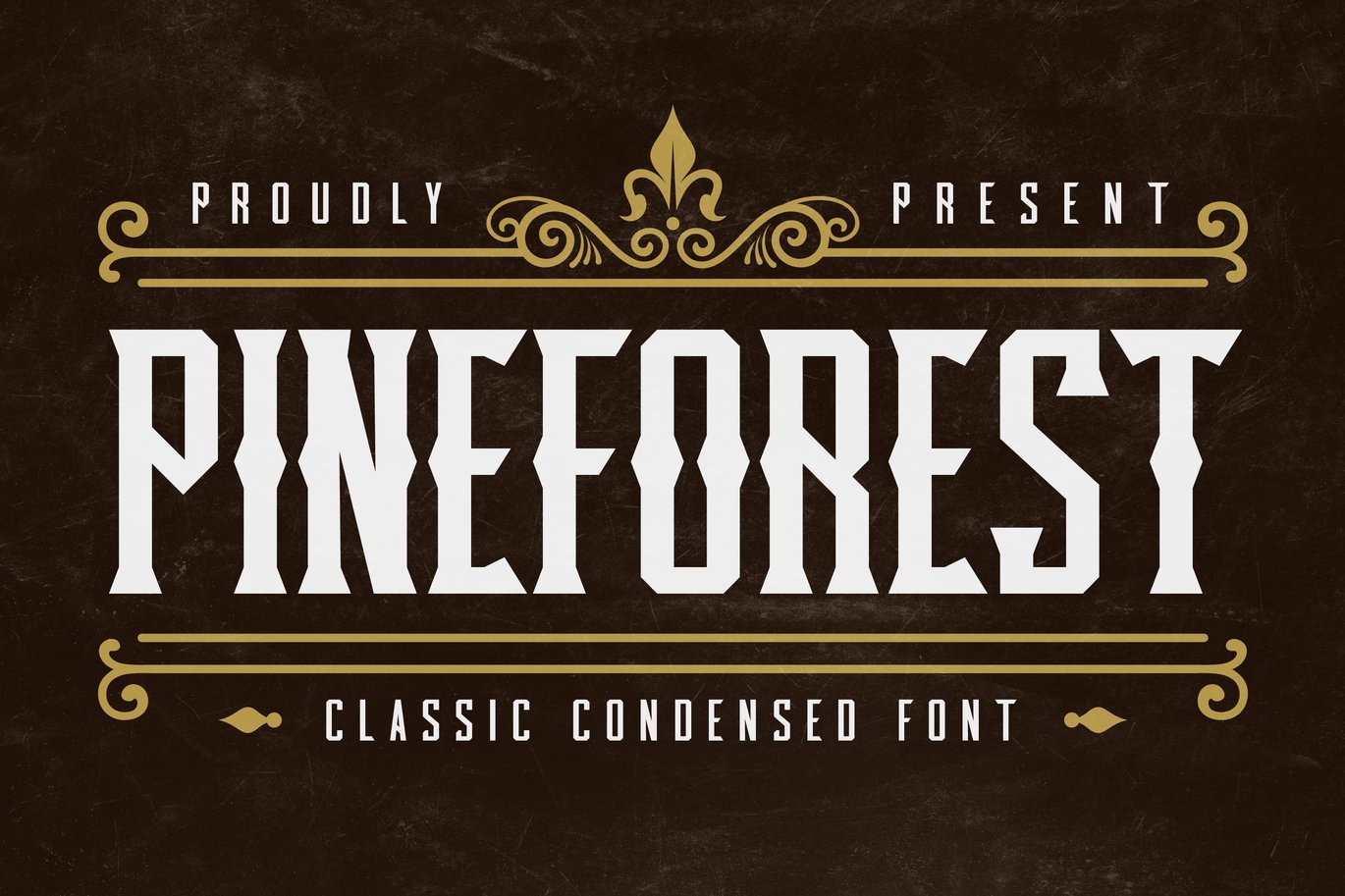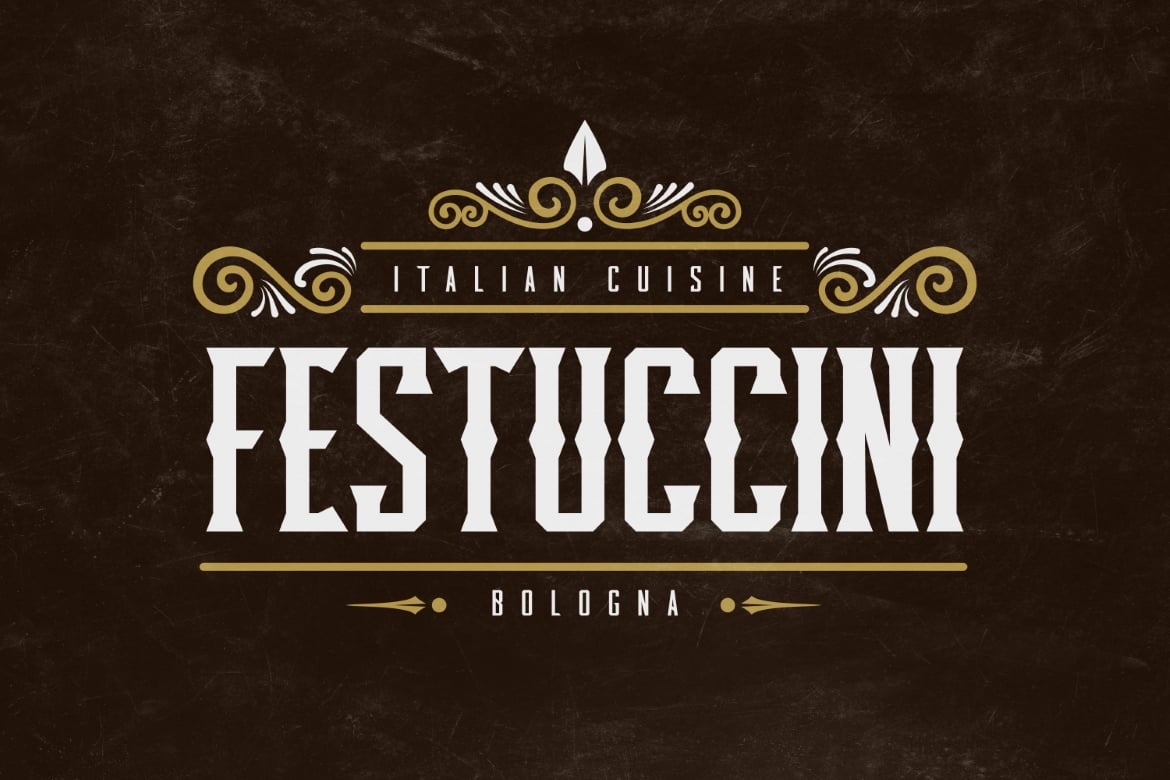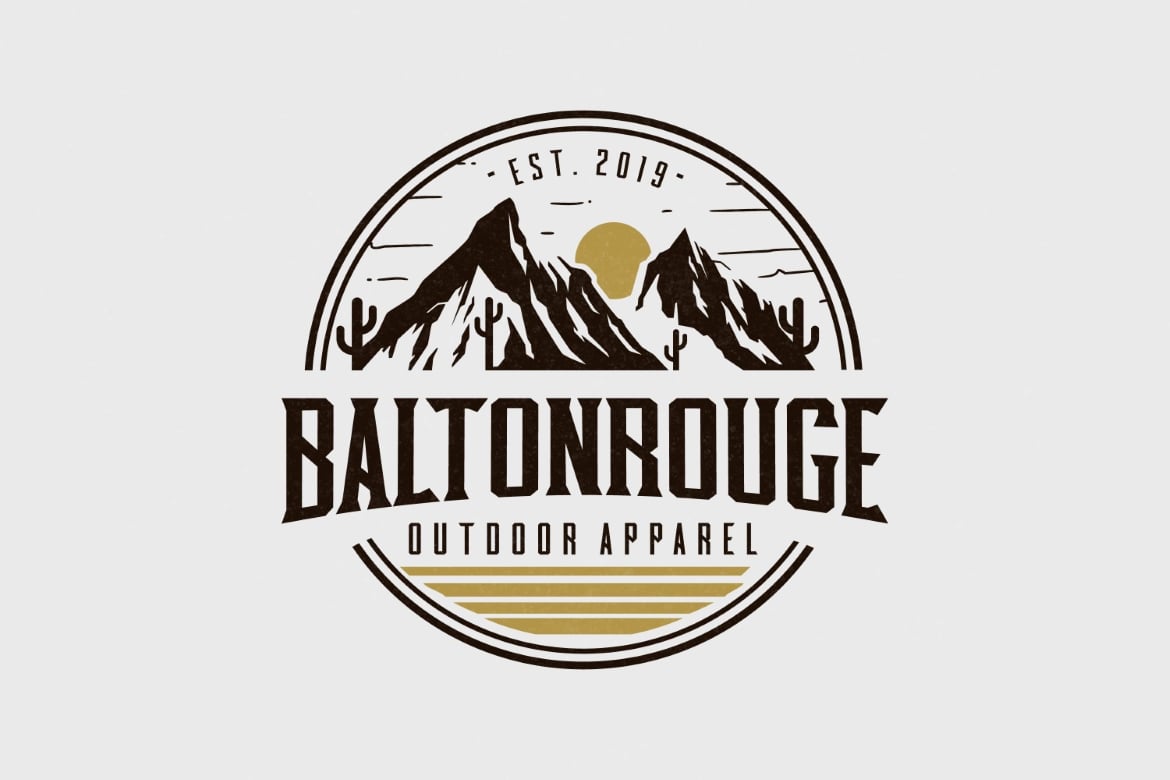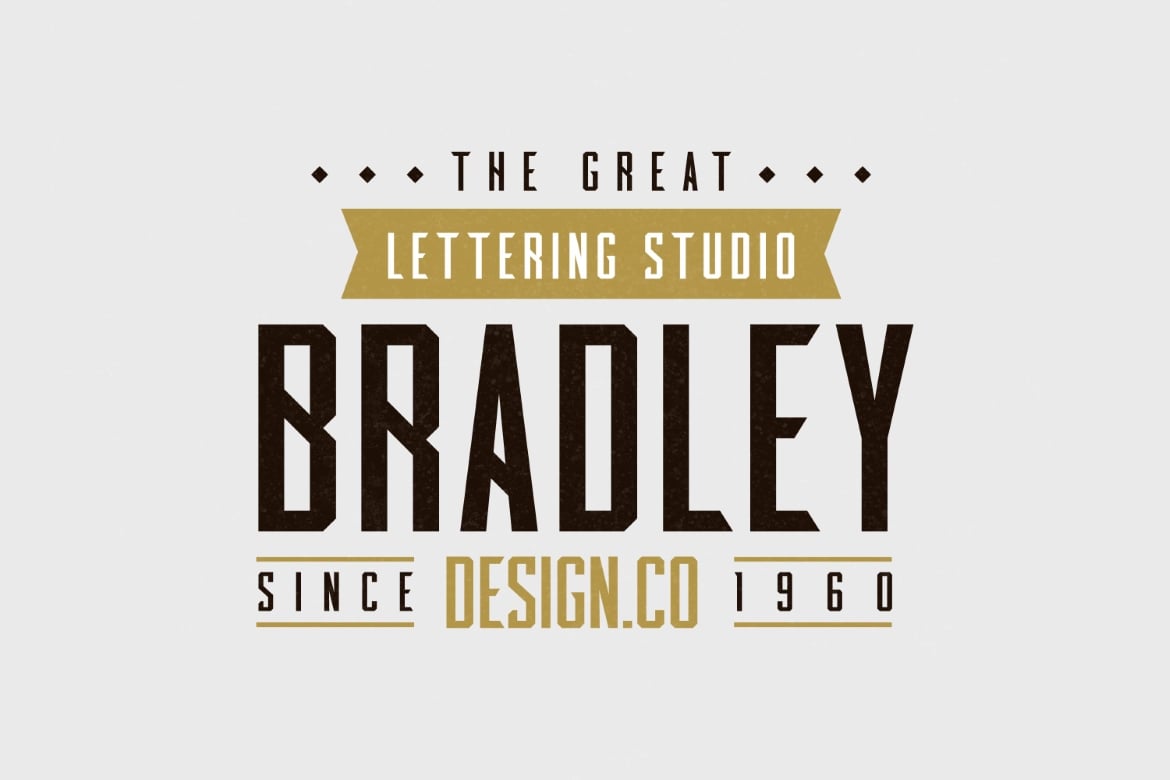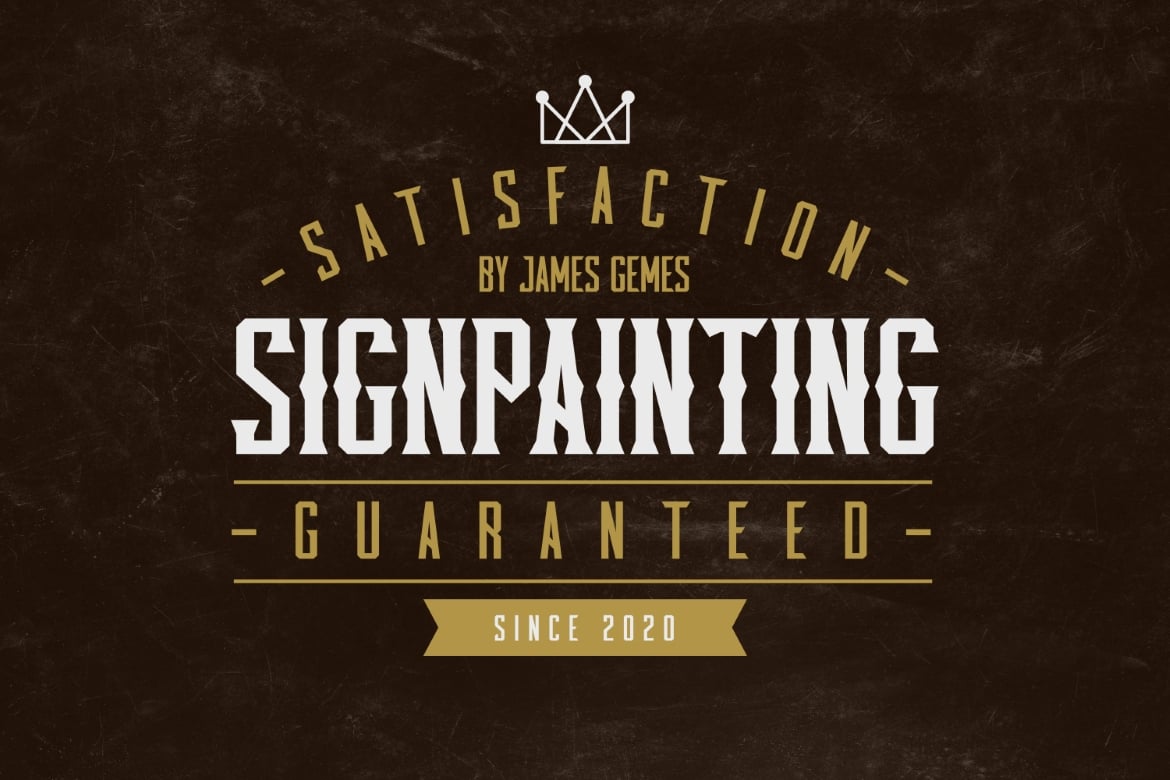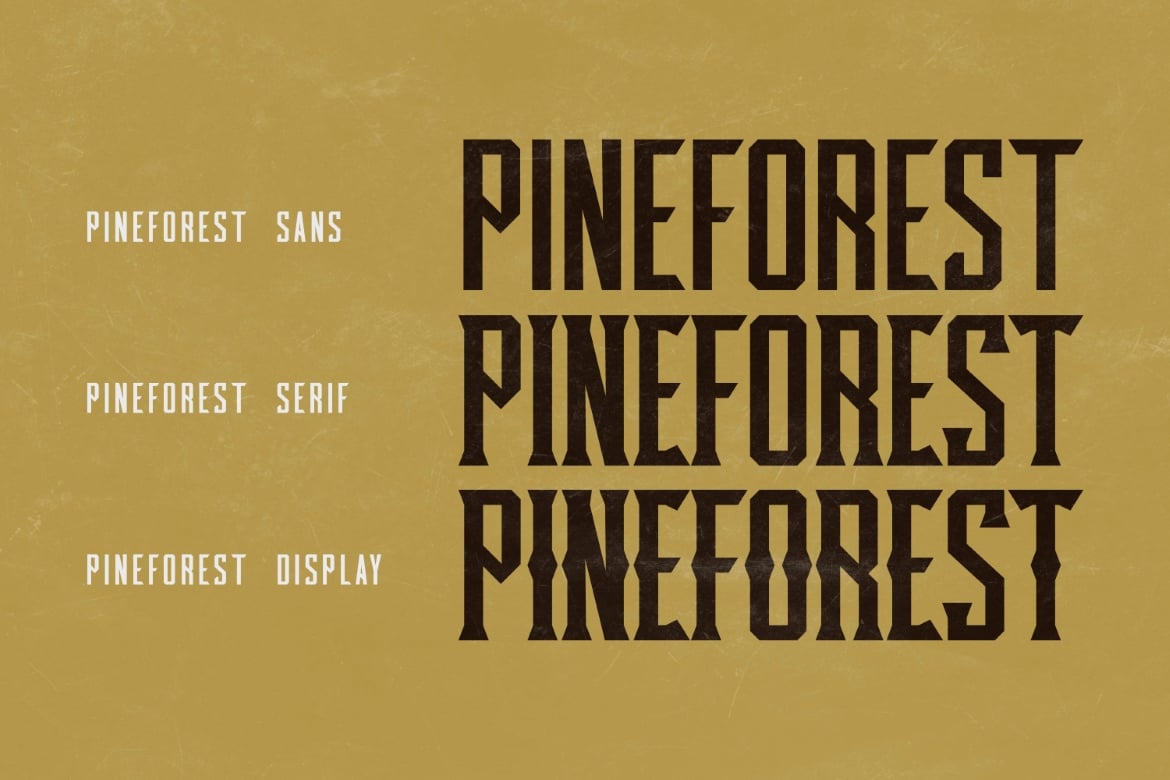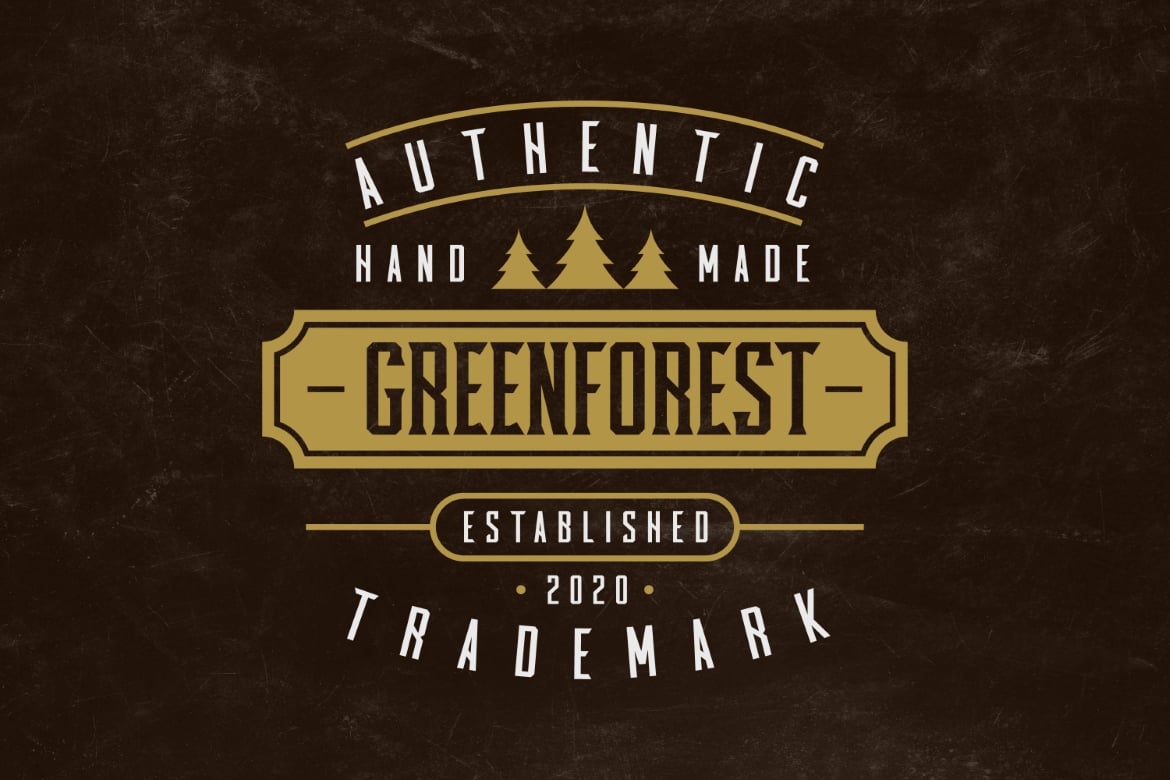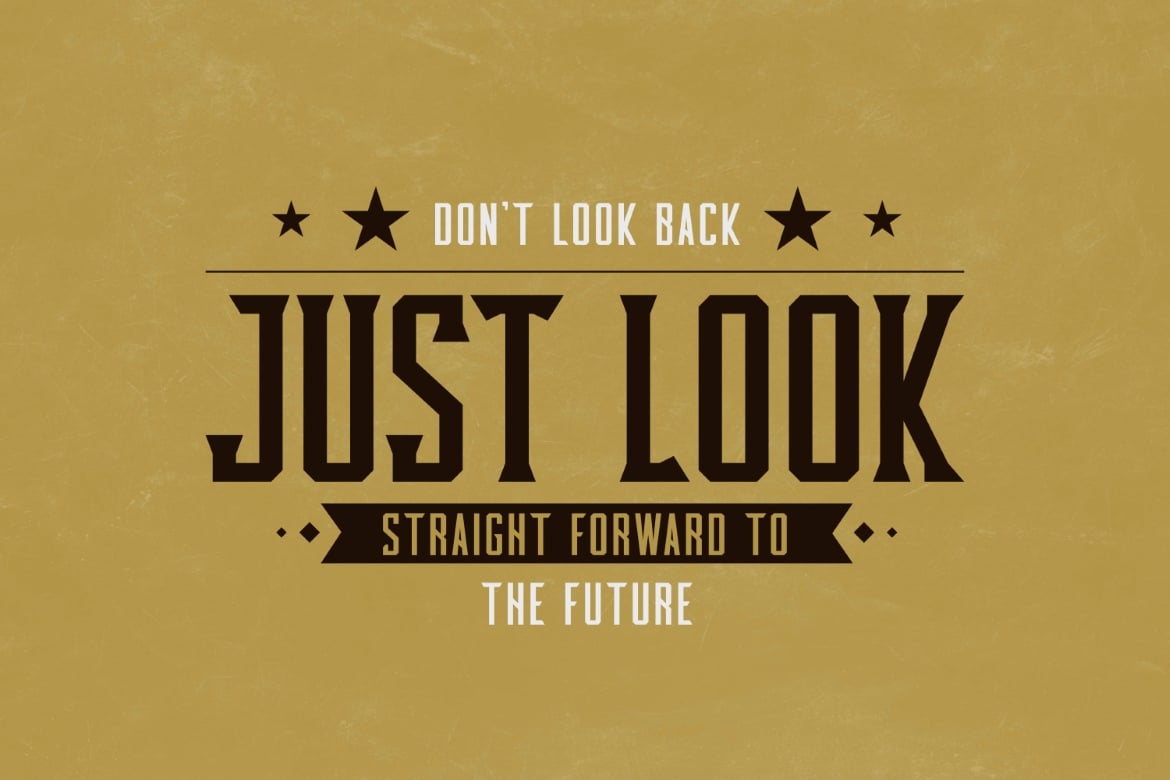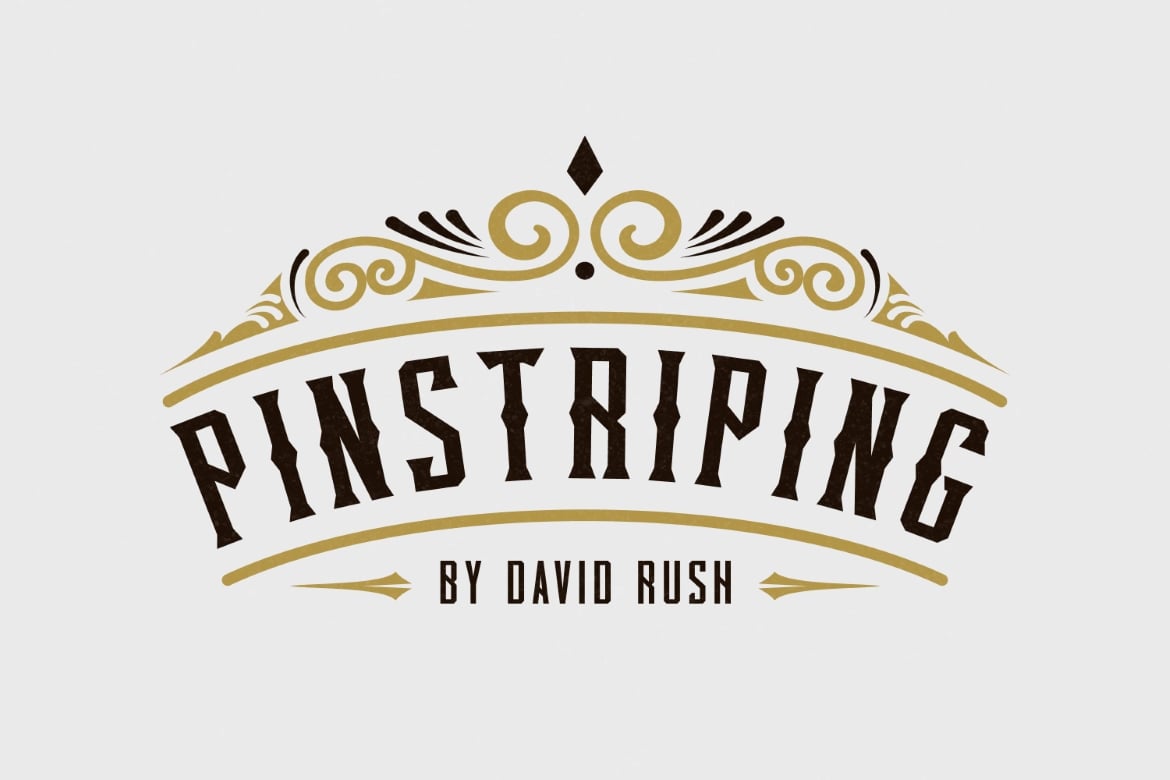
Pineforest – Classic Condensed Font
Introducing our latest display typeface called Pineforest. A unique Fonts with vintage taste can make your lettering / logotype become more interesting.
Pineforest fonts perfectly made to be applied especially in logo, and the other various formal forms such as logos,invitations, labels, magazines, books, packaging, fashion, make up, stationery, labels or any type of advertising purpose
- Multilingual Accent